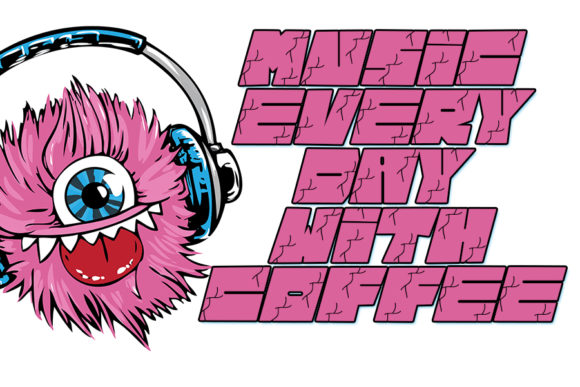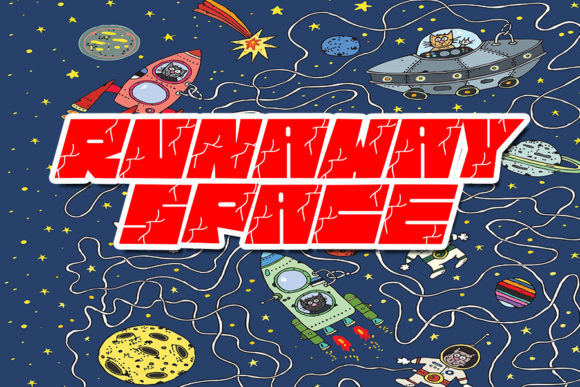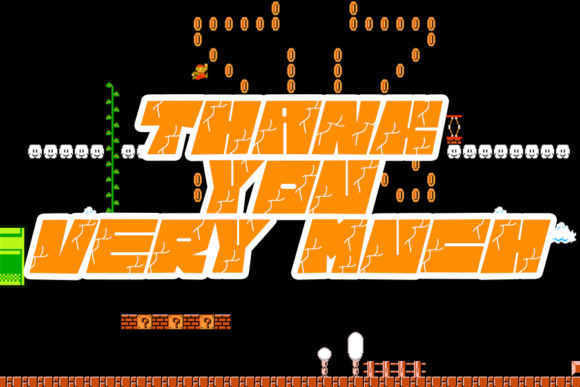
Introduction to Mission Complete Font
Mission Complete is a daring and incredibly unique display font.
Add this chunky lettered font to your designs and notice how it makes them come alive .
Key Features of Mission Complete Font
Why Choose Mission Complete Font?